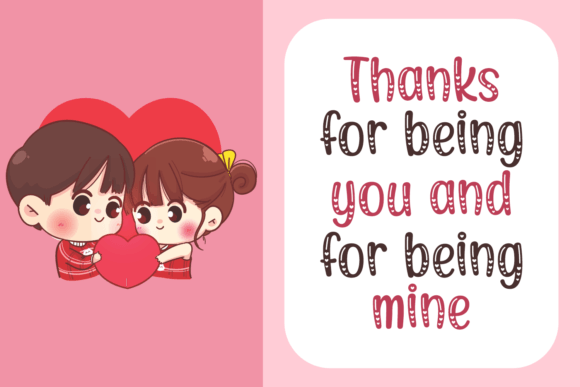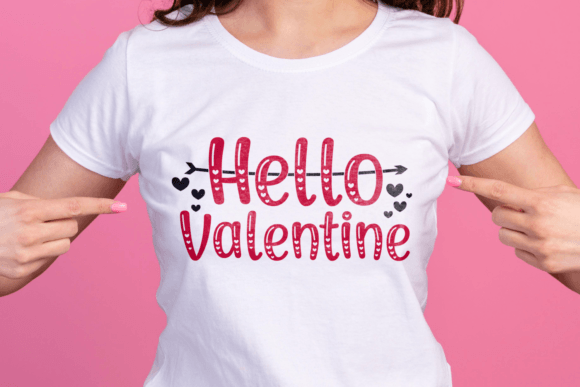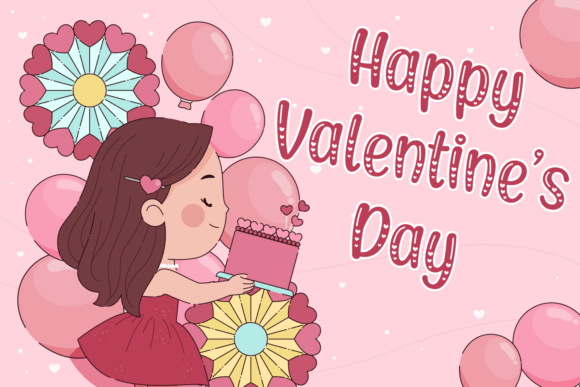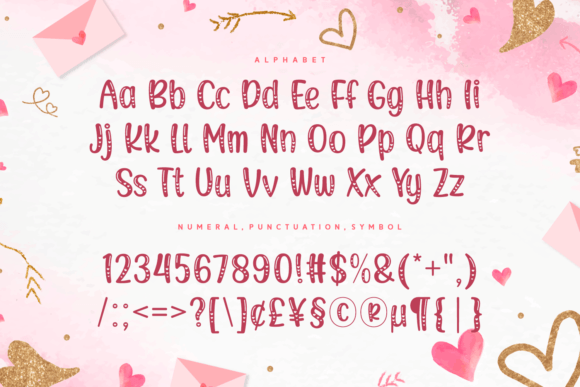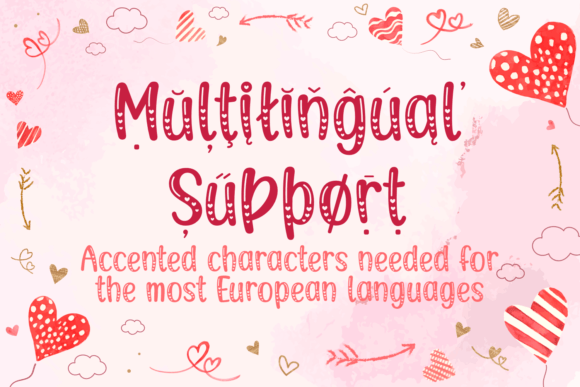
Give Your Creations a Heartfelt Touch with Bright Heart Font
Have you ever stared at a blank page, trying to come up with the perfect phrase to express your love and appreciation? Whether it’s a Valentine’s Day card or a special message for a loved one, we’ve all been there. That’s where the Bright Heart Font comes in – a beautiful, decorative font designed to add a touch of festive flair to any creation.
This lovely font is perfect for designers looking to elevate their projects and make them stand out. With its cute and playful style, the Bright Heart Font is ideal for invitations, greeting cards, advertising materials, DIY gifts, fabric prints, and more. Its versatility and charm make it a valuable addition to any designer’s toolkit, and it’s sure to bring a smile to the faces of those who see it.
Bright Heart Font Key Features
- Font Family: Bright Heart Font offers a range of unique and customizable font families to suit various design needs.
- Character Set: The font includes a comprehensive character set, including Latin, Cyrillic, and Greek alphabets, with over 500 glyphs.
- Unique Characteristics: Bright Heart Font features a distinctive, hand-drawn design with a warm and inviting tone, making it perfect for creating engaging and emotive visual content.
Bright Heart Font Review
I recently had the chance to work with the Bright Heart Font and I’m here to share my honest thoughts.
- The font’s unique design is certainly eye-catching and perfect for creating a lively atmosphere.
- It’s highly legible, even at smaller font sizes, which makes it great for body text or headings.
- The font is highly customizable, with various styles and weights to choose from, making it versatile for different design projects.
- The font may not be suitable for formal or professional designs, as its playful nature might not be taken seriously.
- The font can be quite bold, which might be overwhelming if used extensively throughout a design.
- The font’s unique design might not be to everyone’s taste, which could limit its use in certain projects.
Overall, I think the Bright Heart Font is a great choice for projects that require a fun and energetic vibe. While it may have some limitations, its unique design and high legibility make it a great addition to any designer’s toolkit.
Tips: Use the Bright Heart Font for titles, headings, and emphasis. Experiment with different font sizes and colors to create visual hierarchy.
Tips: Use the Bright Heart Font for logos, headings, and other typography-heavy elements. Experiment with layer styles and effects to add depth and interest.
Tips: Use the Bright Heart Font for titles, headings, and emphasis. Experiment with different font sizes and colors to create visual hierarchy.
The Bright Heart Font is ideal for:
- Brand logos and typography
- Infographics and visualizations
- Emphasis and highlighting in presentations and documents
The Bright Heart Font is a highly customizable font with OpenType features. You can access these features using a font editor or a design application that supports OpenType. Some examples of customizable features include ligatures, swashes, and contextual alternates.